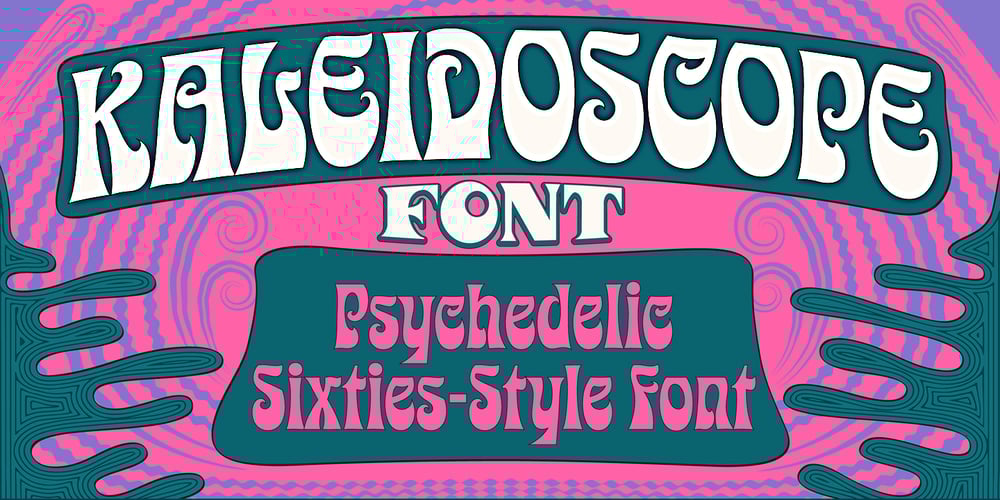
Kaleidoscope
Kaleidoscope font
Kaleidoscope Font Family was designed by Mott Jordan and published by Mysterylab. Kaleidoscope contains 1 styles and family package options. Kaleidoscope is a groovy retro font with roots in the Art Nouveau movement and the psychedelic sixties. Works great for trippy band or festival posters, logos, invitations, and anything that needs a flowing funky vibe.